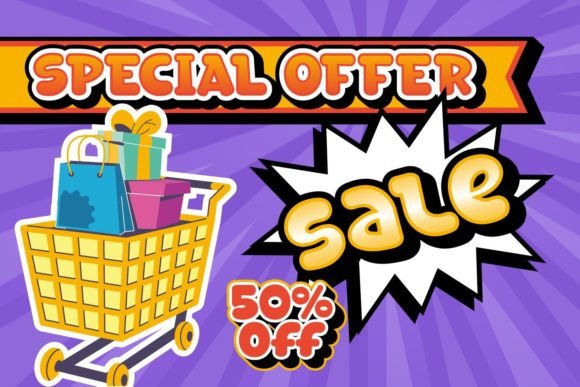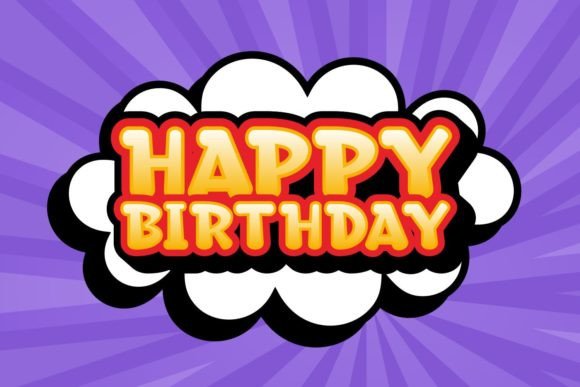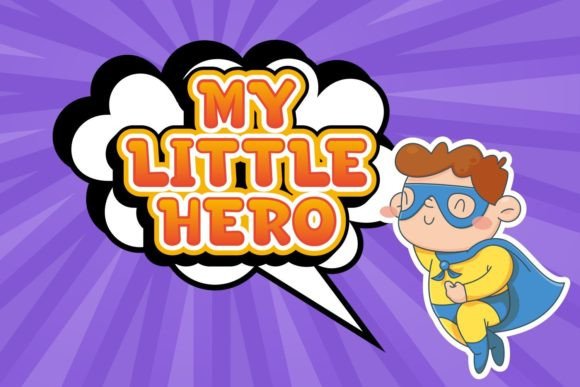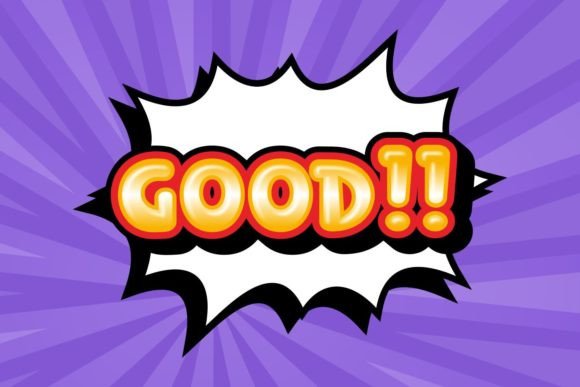
Introduction to Birth Pop Font
Birth Pop is a display font that is uniquely designed and fun.
This font is suited for kids or school themes Whether youโre using it for crafting, playful restaurant menus, digital designing, presentations, or greeting card making, itโs perfect.
Birth Pop Font offers exceptional quality and versatility, making it a valuable addition to your design toolkit. Whether you’re creating for personal projects or commercial use, Birth Pop Font delivers professional results.